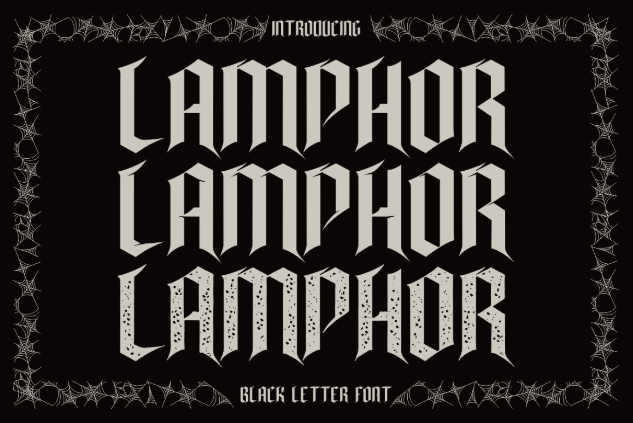
Best fonts for horror are essential tools for designers crafting eerie visuals. It’s about delivering terrifying narratives from the first impression. There are many styles in the horror font category and selecting the perfect one can amplify your overall storytelling.
- Evoking an immersive sense of dread is the power of the best horror font.
- These fonts have diverse vibes, including dread, helplessness, and traditional haunt.
The particularly horror fonts are a fundamental part of building suspense and atmosphere surrounding other creepy elements. The right typeface sets the mood instantly evoking fear, tension, and unease. The following ones invite those feelings.
1. Tribalizm
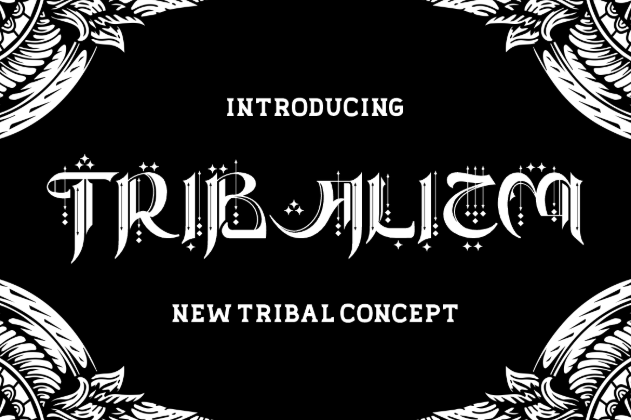
Tribalizm is a tribal font with intricate, ornate letterforms. Its tribal influence brings a sense of unknown mystery to your horror-themed content.
2. Stranger Creature
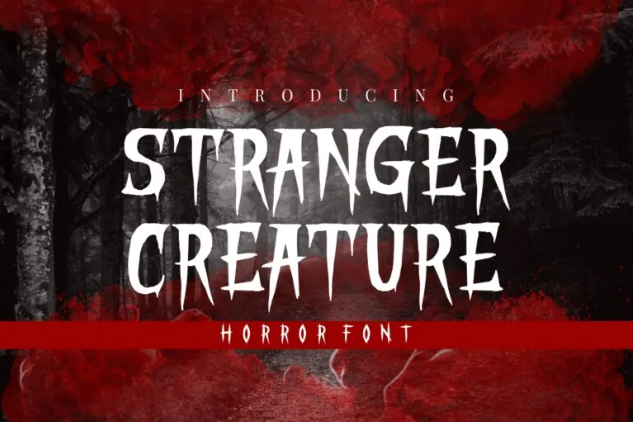
Stranger Creature is an all-caps font with a predominantly ominous nature. Each case has a slightly different style with claw marks as the basis.
3. Necrotic
Necrotic is the most stylish among our best fonts for horror themes. The font uses a blackletter typeface with nine style options including 3D capability.
4. Death Fire
As the name suggests, Death Fire is a fiery font that screams despair. It has tall condensed, all-caps letters with intense decoration.
5. The Night Lamp
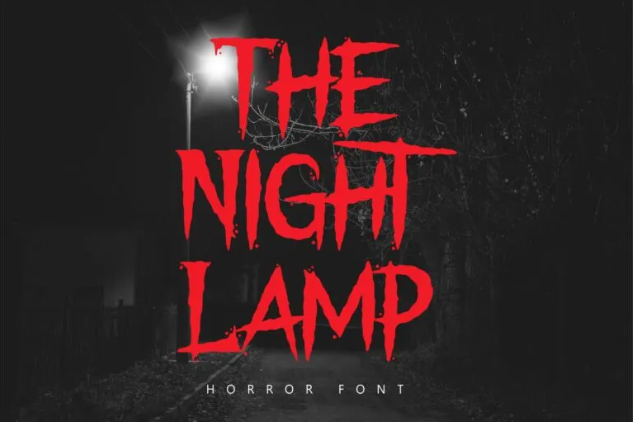
The Night Lamp is essentially an unsettling typeface. This font did have great readability but was also imbued with bloody ornaments, creating an unmistakable horror.
6. Arshaka
Arshaka is different from the other horror fonts. This font prefers to beautify your text while still retaining an eerie vibe.
7. Spookies Identity
Spookies Identity is the perfect font for your horror title or posters. This font has great readability, with its bold and tall letters that can easily grab attention.
8. Unburied
Unburied is just straight-up a sinister typeface. Its elongated letters create a space for its bone-chilling spikes to strike much more fear into your soul.
9. Abyzoth
Rather than spooky vibes, Abyzoth is leaning toward unnatural visuals. Its jagged, weathered, and rough texture evokes a raw, unsettling feel to your horror designs.
10. Silent Scream
You can tell you’re making a forsaken design when using Silent Scream. This font has an intense deformity to its flairs, making it look like your letters are inside a curse.
11. Nekros
Nekros is a horror font with a strong rebellion vibe. This font combines the scary, unsettling typeface with dominant flame ornaments.
12. Rose Thorns
Rose Thorns is an all-caps font with thorny letters. One of the best fonts for a horror story, depicting a bunch of thorns that make up letters.
13. Night Crow
Night Crow is a display death metal font that has professional capability. Aside from its tendrils, this font has great readability, and thick, eye-catching letterforms.
14. Blazrux
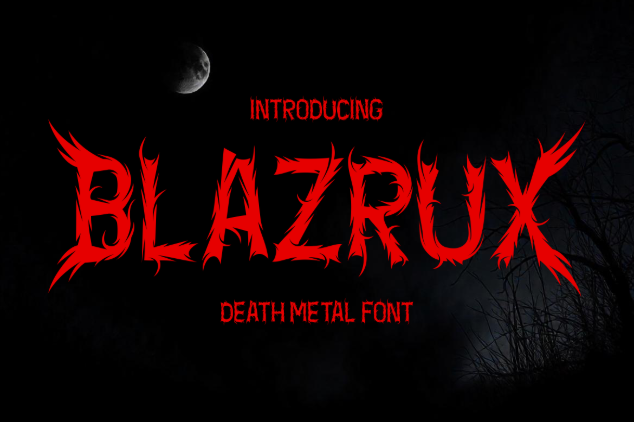
Blazrux has a clearer individual thorn in each letter. This discrepancy allows the font to look more cartoony.
15. Oblivor
If you want to enhance a grim aura in your horror designs, Oblivor is the font you need. This font offers dark, distressed, and bloody letters to your horror content.
16. Dread Lord
Among our best fonts for horror content, Dread Lord offers a unique approach. The font displays thick, squared, and hazy letterforms resembling cracked surfaces.
17. Smoky Ghost
As the name suggests, Smoky Ghost portrays an intense haunting atmosphere from its letters. This font retains its morbid look even with vibrant colors.
18. Winged Words
Winged Words exemplifies that a Gothic-style letters can be beautiful. This font utilizes the beautiful flairs of a script typeface complete with all its ornate ornaments.
19. Necrovoid
Necrovoid is a condensed gothic font with multiple aesthetics. The one you see in the poster is one of its six styles, which guarantees the creation of unique designs each time.
20. Colide
Colide is a Halloween font with a Gothic typeface. This font has four styles: regular, cut (which is on the cover), and rough texture for both previous versions.
21. Shaky Halloween
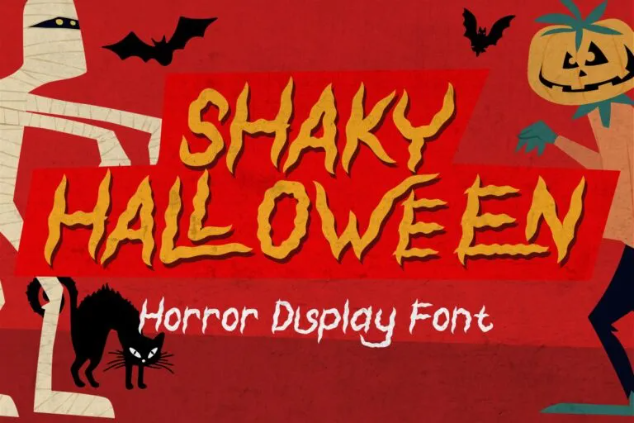
As the name suggests, Shaky Halloween uses wiggly lines on its letters. With that style, this font evokes an uncomfortable feeling in your designs.
22. Atlas Celeste
Atlas Celeste pretty much combines all the previous unique styles. This font uses Gothic, blackletter typeface, thorny swashes, and haunting vibes.
23. Stormsong
Stormsong combines refined blackletter with tribal ornaments. The font has four styles, each with unique tribal ornamental and letter interpretations.
Strike a Fear with Our Best Fonts for Horror Concept!
When choosing what is the best font for horror concepts, you may focus on the atmosphere and also the ornament. You can drop the legibility since it is also part of toning up the horror vibe.